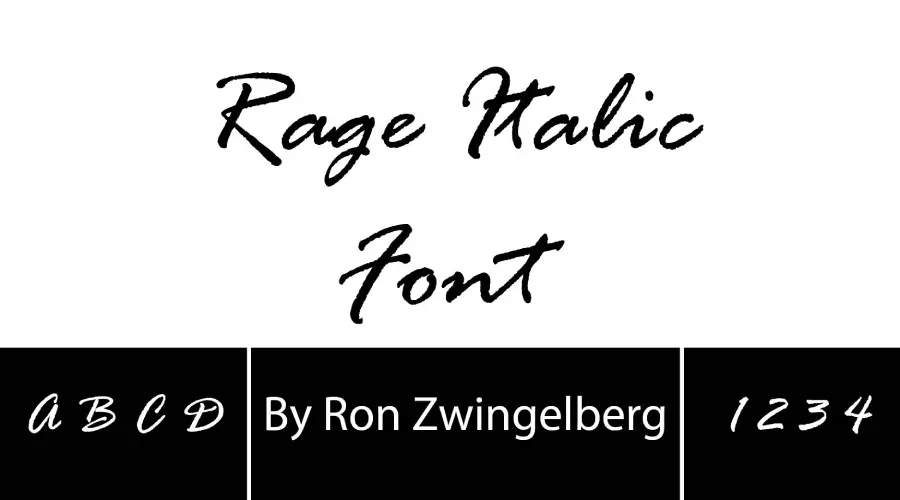
Rage Italic Font
Rage Italic font is a popular casual brush script typeface with a rough, textured edge. It was designed by Ron Zwingelberg. He is an American graphic designer who also created other popular fonts, including ITC Zwiggy and ITC Zwiggy Bold.
Rage Italic is based on a brush script lettering style popular in the early 20th century. The font features bold, expressive strokes and stylistic details, such as initial-like capitals and swashes.
Rage Italic is a versatile brush script font that can be used for a variety of work and design purposes. This includes logos, headlines, and posters. It is known for its rough and dynamic look, which can create a sense of energy and excitement.
Rage Italic is a casual and informal font that suits various design contexts and purposes. If you want to add a human touch with the brush to your design, then this is the font for you!